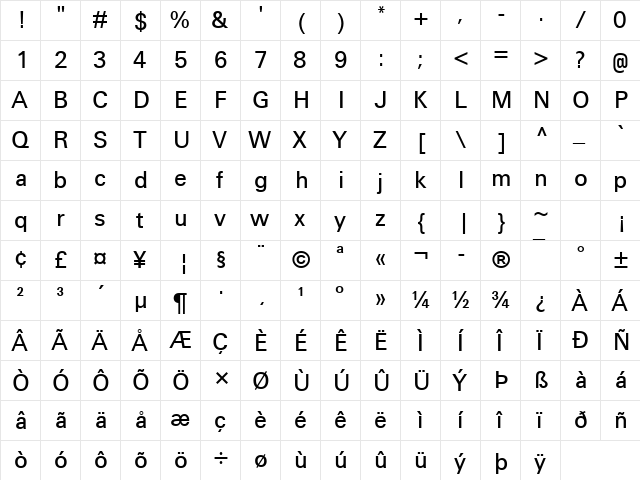
Utah MT Regular
Design Context for Utah MT Typeface
Utah MT takes a measured approach to typography — its balanced proportions and neutral character make it a reliable workhorse for both digital and print work.